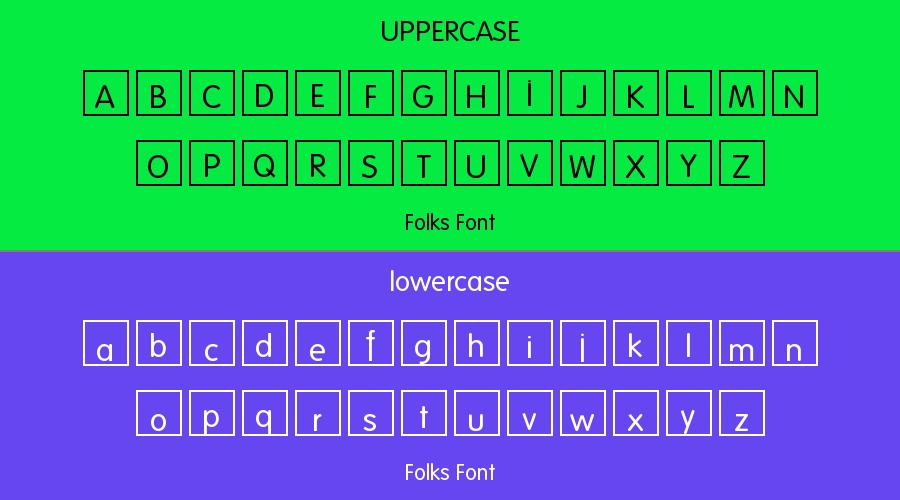
About Folks Font
Folks Font embodies typographic excellence through its masterful combination of pen-inspired details and durability. Created for literary works, this typeface delivers exceptional legibility and technical mastery across all applications. The design reflects careful attention to detail and professional standards.
Advanced capabilities include distinctive circular bowls and versatile word-end alternates, giving designers creative control. When used in retail environments, Folks Font exhibits remarkable detail retention. The harmonious balance between joint detail and artistic merit sets this typeface apart.